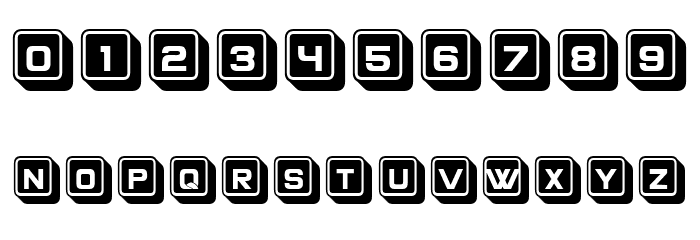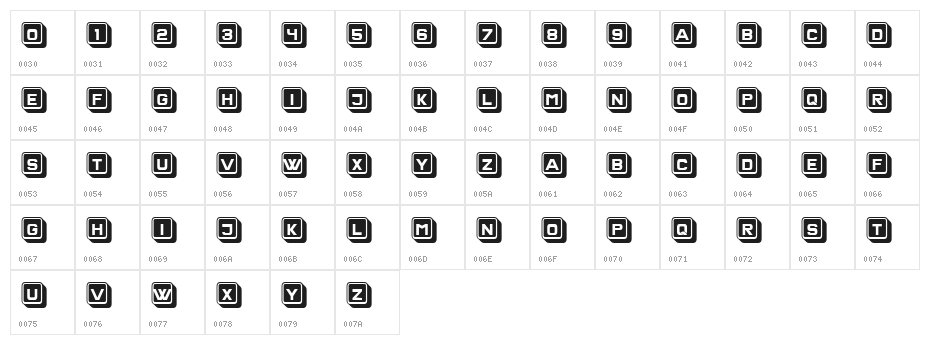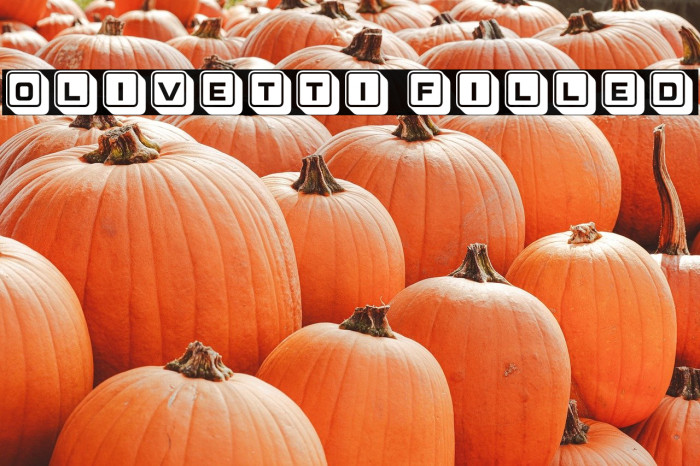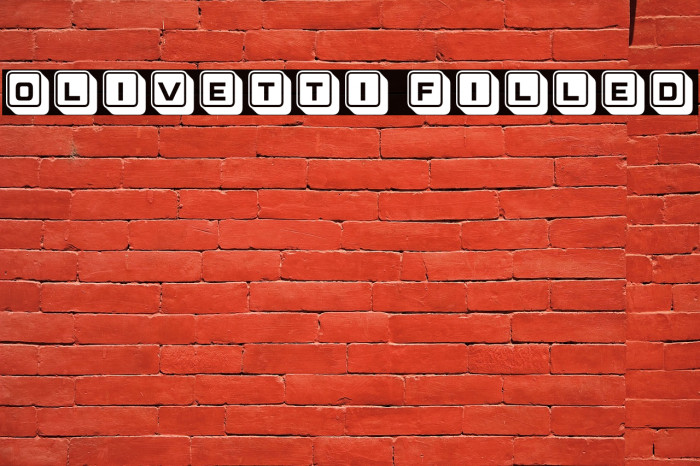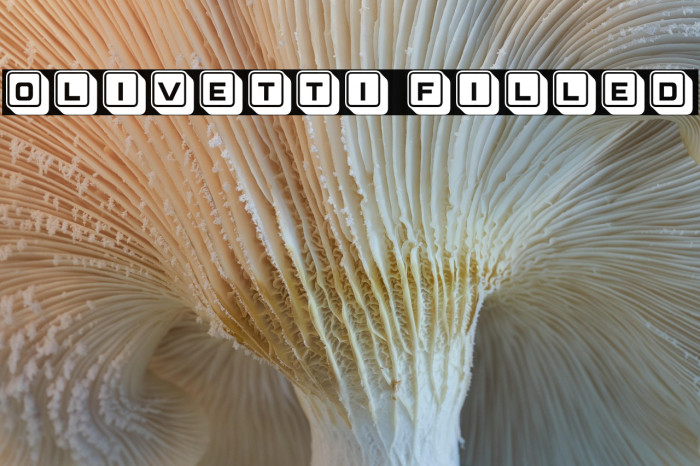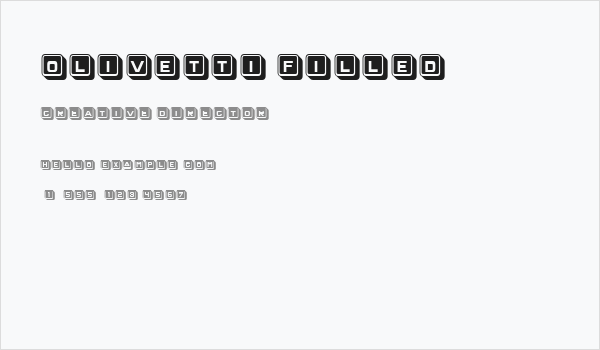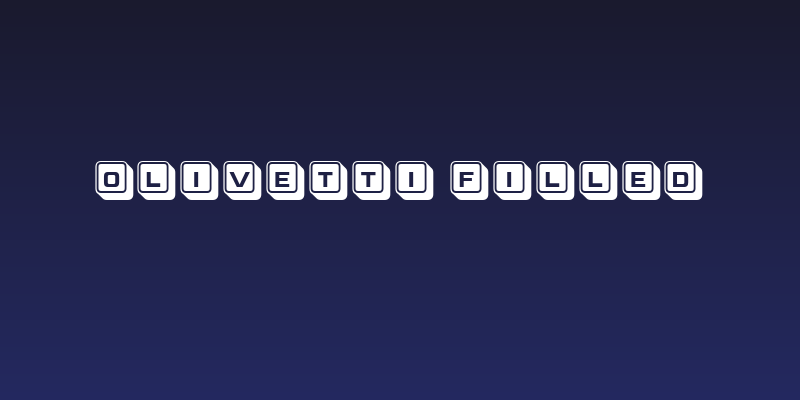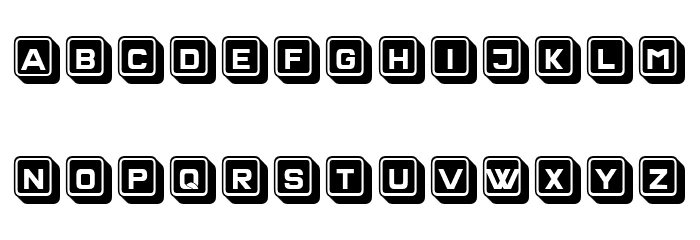
Olivetti Filled Font
Olivetti Filled Description
This font features a bold, geometric style with each character enclosed in a rounded square, creating a distinct and modern appearance. The letters and numbers are uniformly filled, providing a strong visual impact. The consistent thickness of the strokes and the enclosed design give it a structured and cohesive look. The characters are evenly spaced, ensuring readability while maintaining a compact form. The font's unique style makes it suitable for projects that require a contemporary and eye-catching typeface.
| Proposed Projects | Ideal for digital interfaces, branding, posters, and any design that requires a modern and bold statement. |